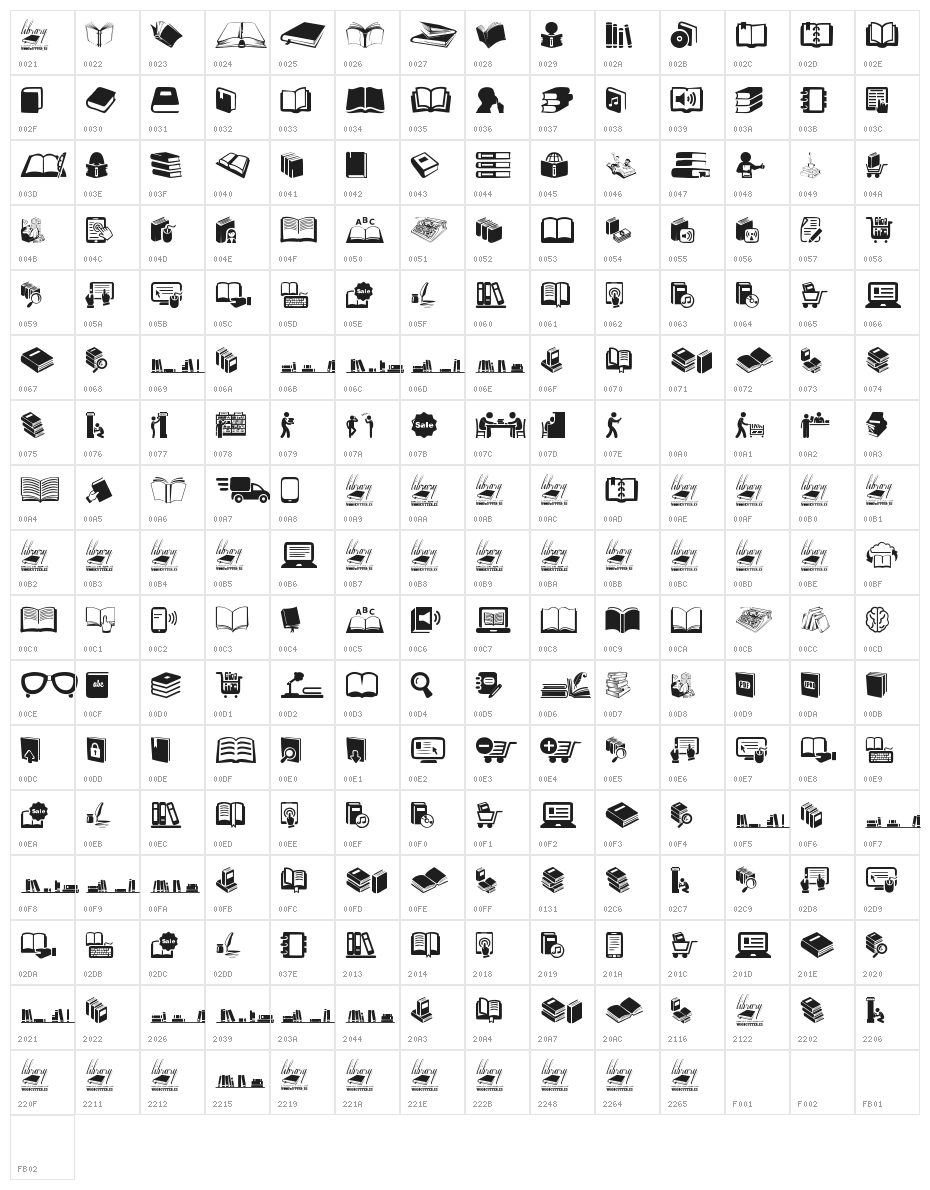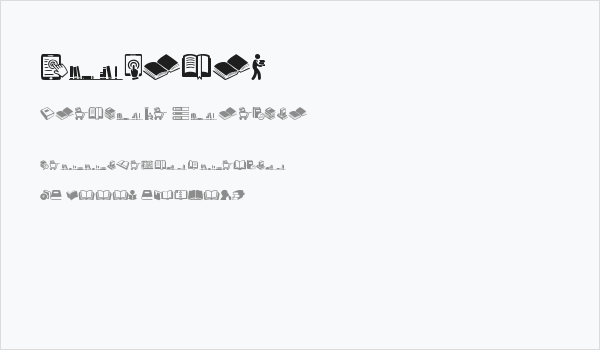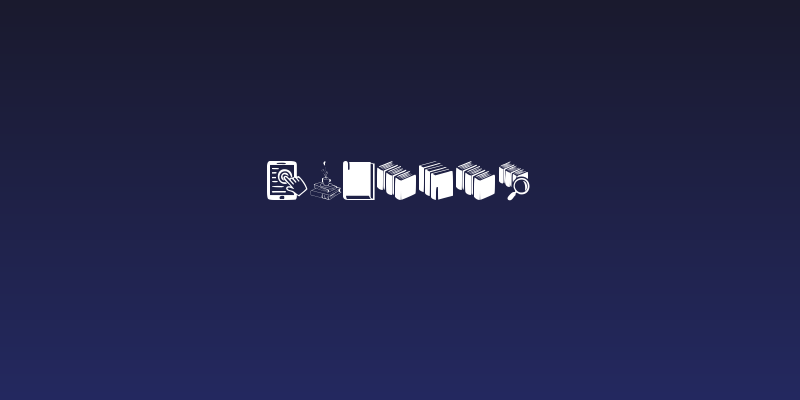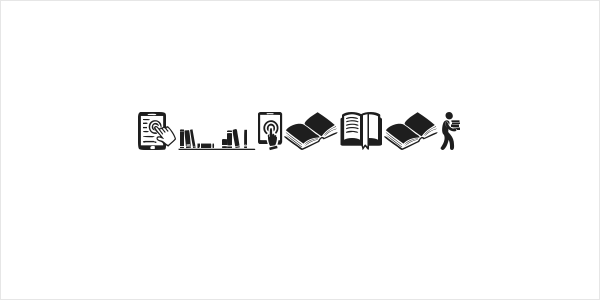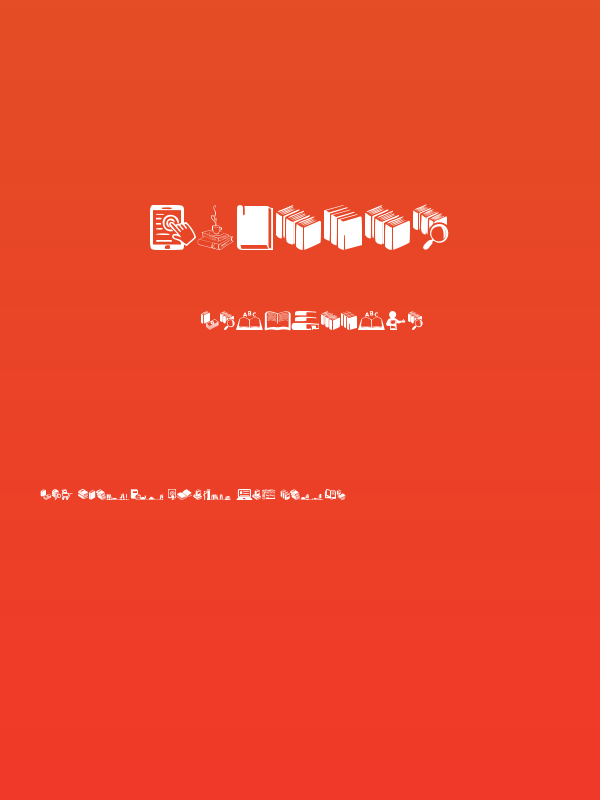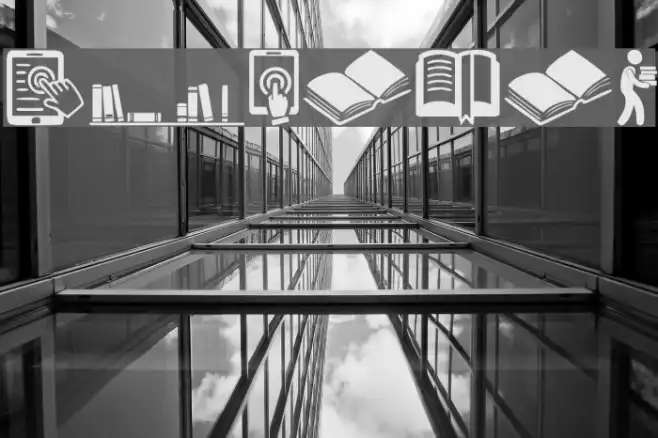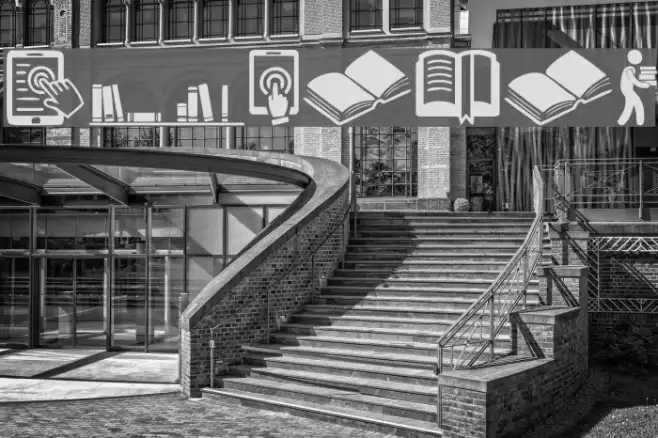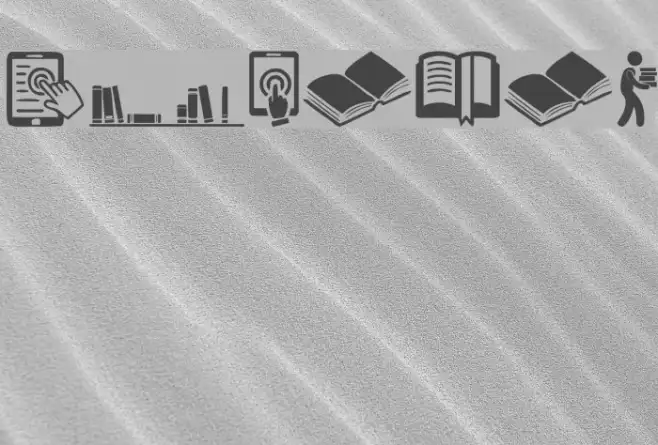
Library Font
Library Description
A pictogram-style dingbat font featuring a variety of library, book, reading, and media-related icons in bold, high-contrast black and white silhouettes. The glyphs include stacks of books, open books, people reading, digital devices, library carts, and multimedia symbols, all rendered in a consistent, simplified graphic style.
| Use Case | Icons, Logos, Signage, Educational graphics |
| Proposed Projects | Library signage, educational materials, infographics, websites, app interfaces, posters, and presentations. |